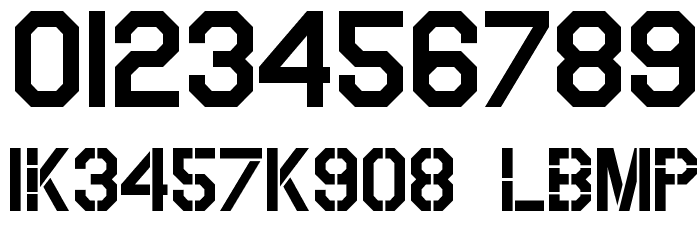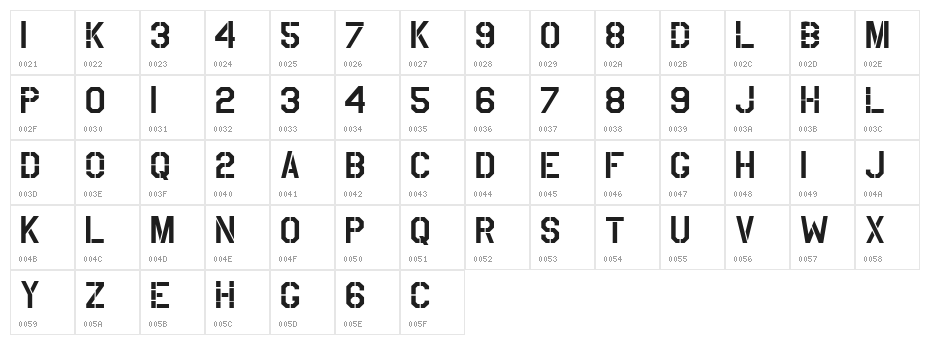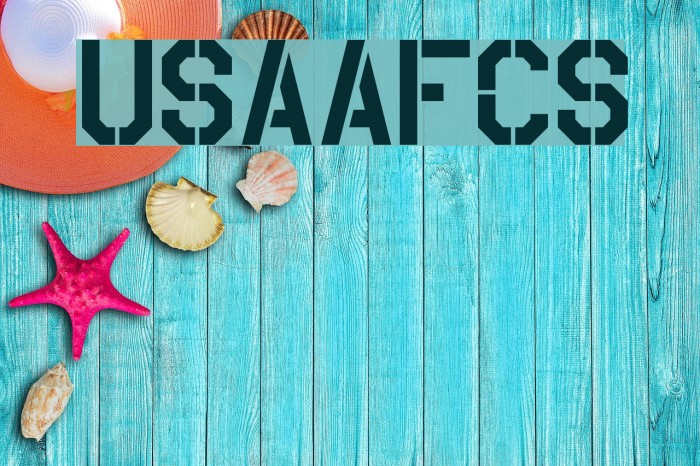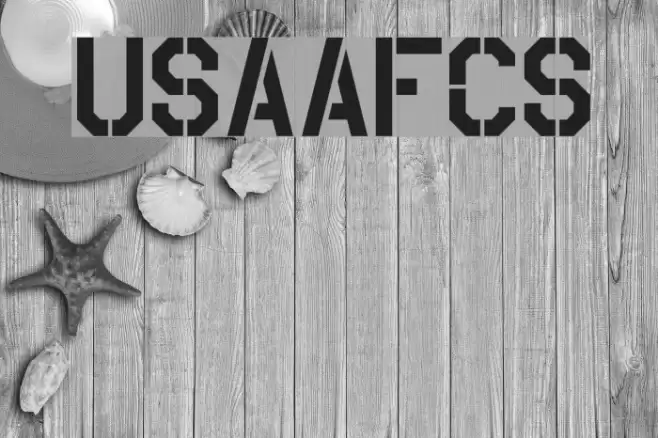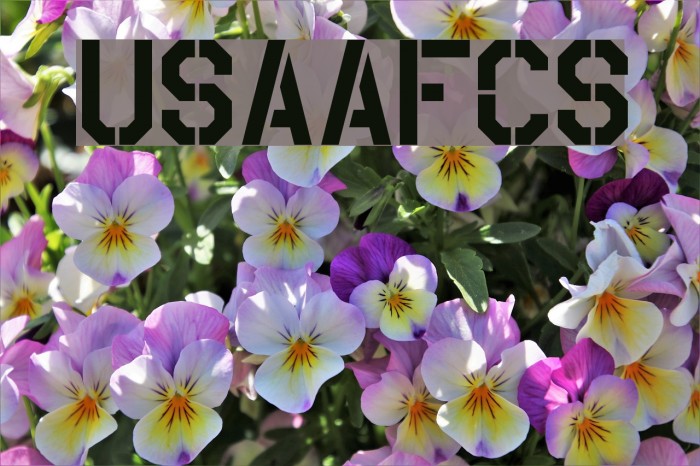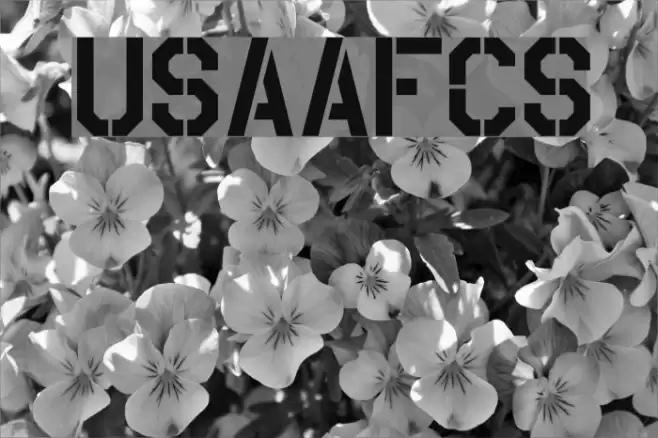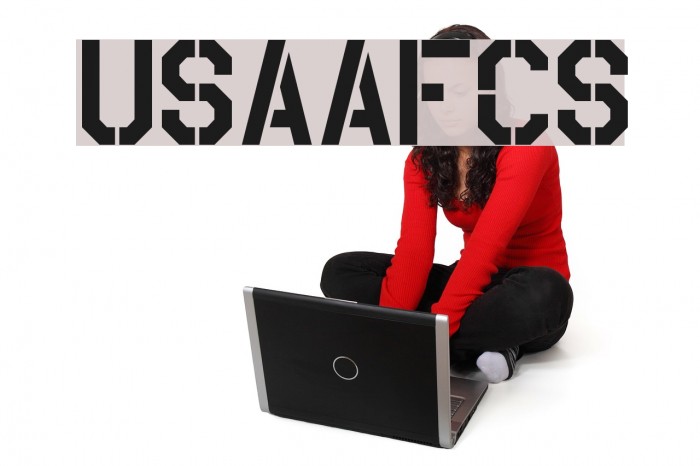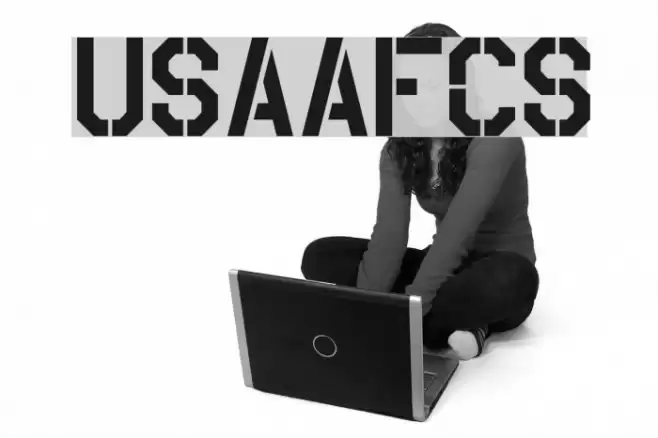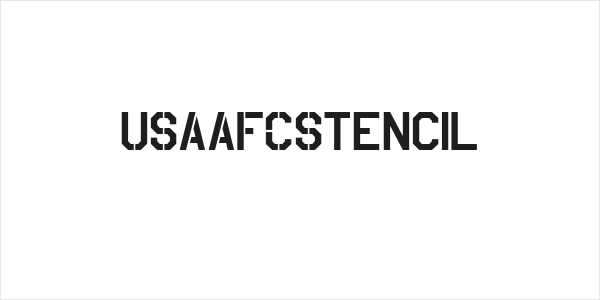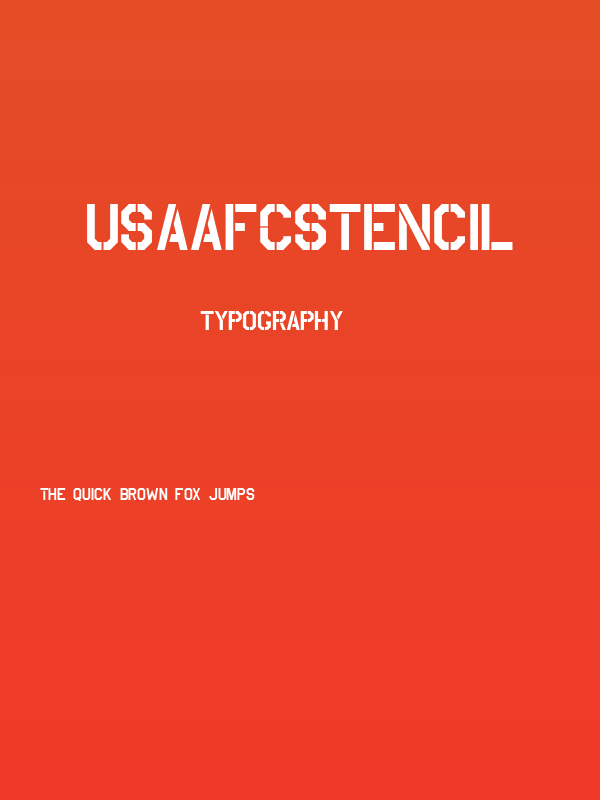
USAAF_Stencil Font
USAAF_Stencil Description
This font features a bold, industrial design with a stencil-like appearance, reminiscent of military or industrial labeling. The characters are constructed with clean, geometric lines and distinct cut-out sections that give it a utilitarian and rugged feel. The uppercase letters are uniform in height, and the numerals are consistent with the overall style, maintaining the same boldness and cut-out characteristics. This design is highly legible and impactful, making it suitable for various applications where a strong, authoritative presence is desired.
| Overall Style | Industrial, Rugged |
| Use Case | Headlines, Logos, Signage |
| Proposed Projects | Ideal for military-themed designs, industrial branding, signage, and packaging. |